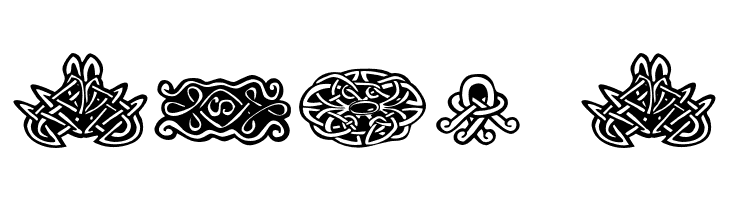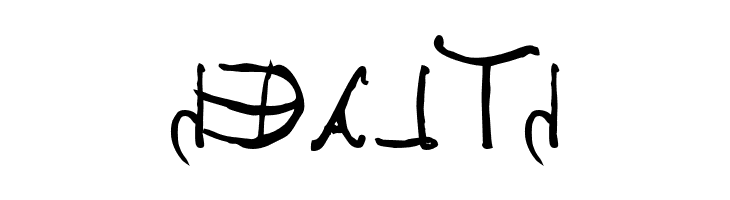
A bold, geometric font styled like a classic film strip, perfect for cinematic themes.
A skyline-inspired decorative font with a modern, architectural style.
A sleek, modern italic font with elongated, condensed characters.
A decorative, playful font with a Latin American comic book style.
An intricate, decorative font inspired by traditional tattoo art.
A set of bold, abstract symbols within circular shapes, perfect for creative designs.
A mirror writing font with an artistic, vintage flair.